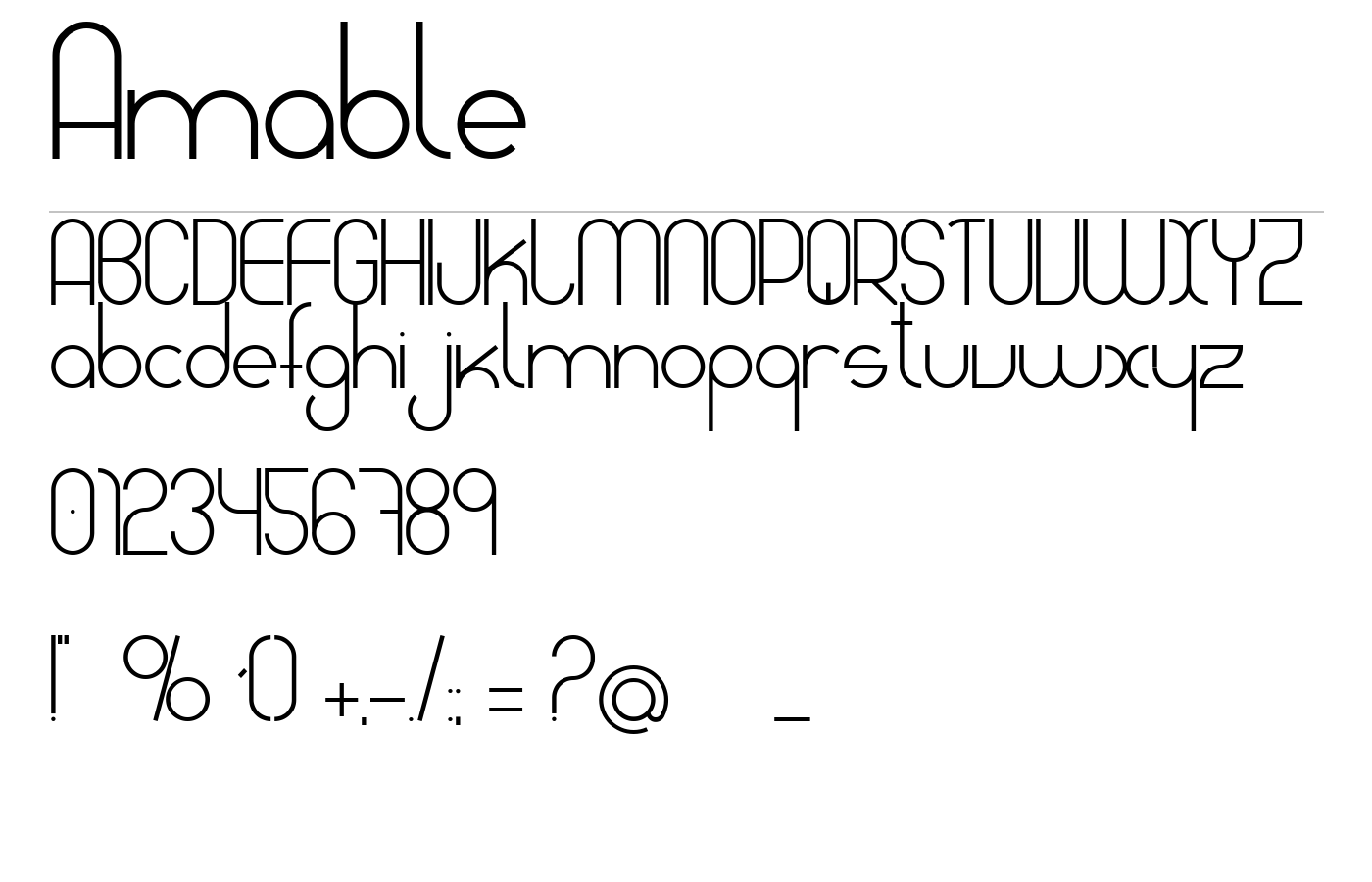
Amable is a sleek, modern sans serif font characterized by its ultra-thin weight, tall x-height, and elegant geometric letterforms with rounded edges and unique elongated strokes. Its airy and minimalist design lends a sophisticated, contemporary feel, making it ideal for stylish branding, editorial headlines, and creative projects that seek a refined yet approachable look.
Amable Font
About Amable Font